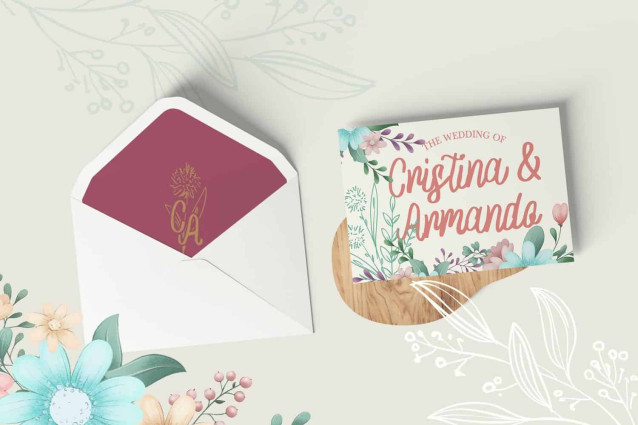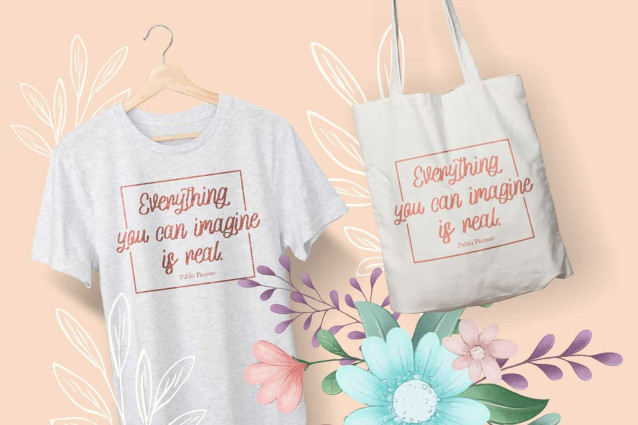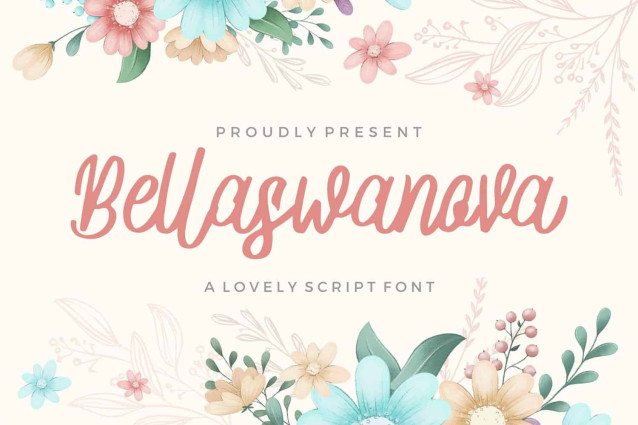
Bellaswanova Script Font
Bellaswanova Script Font is a beautiful and light handwritten font with a unique feel and a stunning impact. It will add a luxury spark to any design project that you wish to create!